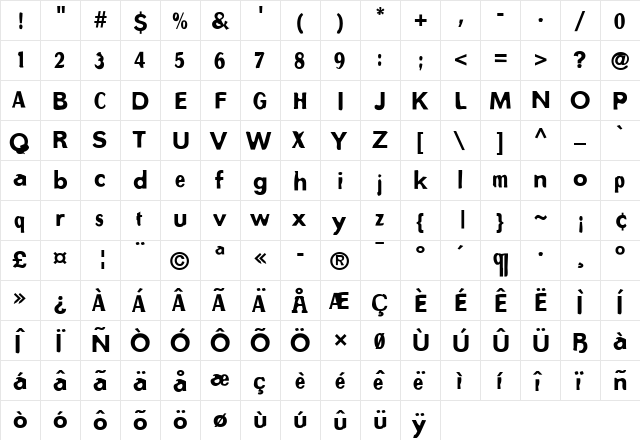
Mullethead Medium
| Foundry | MulletHead\ Lunchbox Design, Designed By Adam Roe |
Design Context for Mullethead Typeface
Mullethead is a composed and adaptable typeface that performs quietly and consistently across a wide range of design contexts.